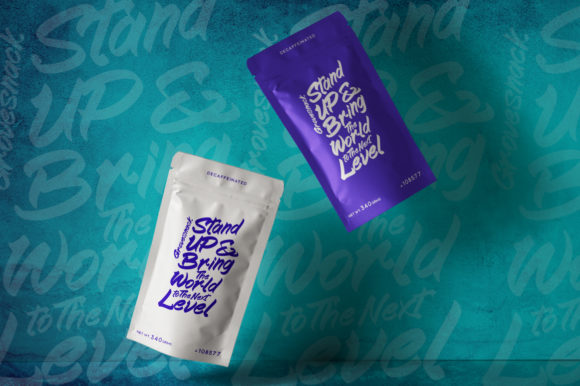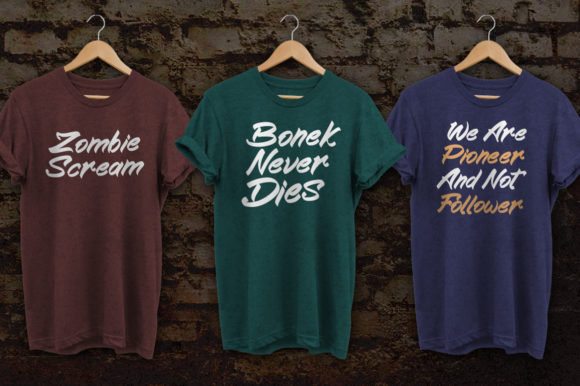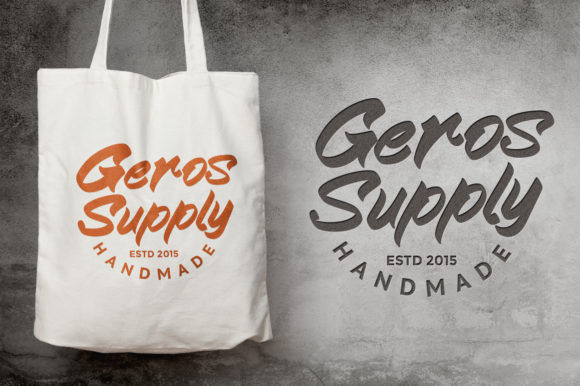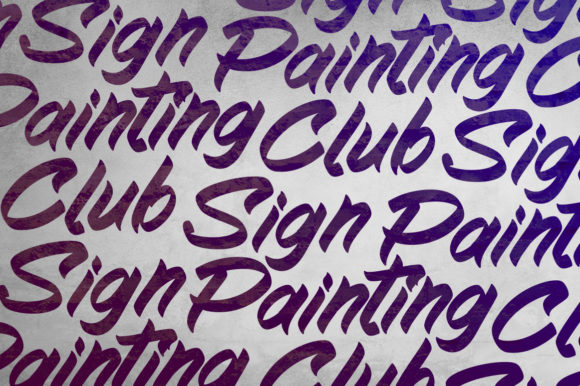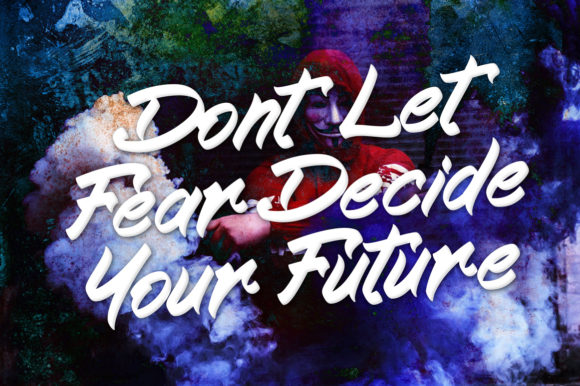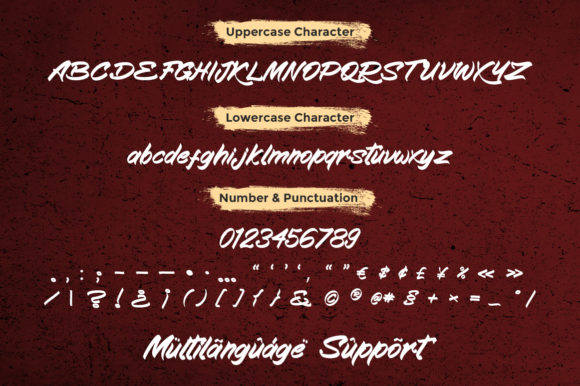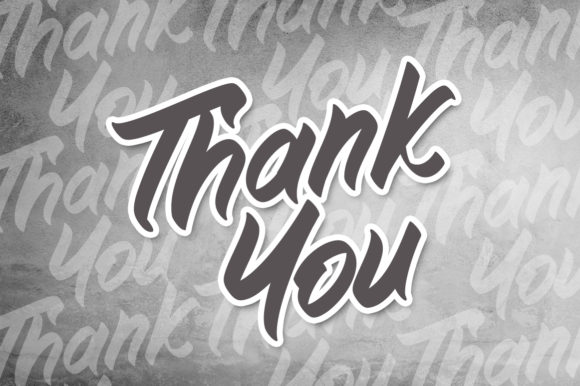
HomeScript FontsKampiun Samgor Font Script Fonts Kampiun Samgor Font FacebookXPinterestWhatsApp Kampiun Samgor Font Poster 2 Kampiun Samgor Font Poster 3 Kampiun Samgor Font Poster 4 Kampiun Samgor Font Poster 5 Kampiun Samgor Font Poster 6 Kampiun Samgor Font Poster 7 Kampiun Samgor Font Poster 8 About Kampiun Samgor Font Kampiun Samgor is a casual script font with hand-lettering style. Great for a variety of projects! DOWNLOAD ON CREATIVE FABRICAThis font is sold and delivered by Creative Fabrica. Font Canyon may earn a commission if you buy through this link. People also explored Ultra DM Font Anistton Font Love Sunshine Font Magnolia Font Ghuliyat Font Yearbook Font Schoolish Monogram Maker Font Christmas Laurent Font Back to School Font 271 0 TagsKampiun Samgor Font Previous articleSkull Pathway FontNext articleDo Not Forget to Eat Font LEAVE A REPLY Cancel reply Comment: Please enter your comment! Name:* Please enter your name here Email:* You have entered an incorrect email address! Please enter your email address here Website: Save my name, email, and website in this browser for the next time I comment. Personal Use Free Midnight Show Personal Use Free Read more about this font Black Jalal Personal Use Free Read more about this font Hommy You Personal Use Free Read more about this font Retro Free Personal Use Free Read more about this font BLOG The 10 Best Handwriting Fonts to Add Personality to Your Designs 10 of the Best Handwriting Fonts for Adding Personality to Your Designs There will undoubtedly be no other better choice than handwriting fonts to give... Transform Your Website: Elevate Your Typography with 7 Best Web Font Generators How to Install and Use Fonts on Windows, macOS, and Web Projects To increase your work productivity, choose the most readable fonts.